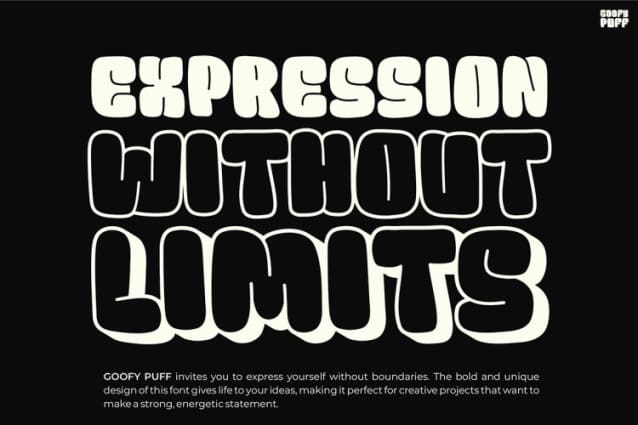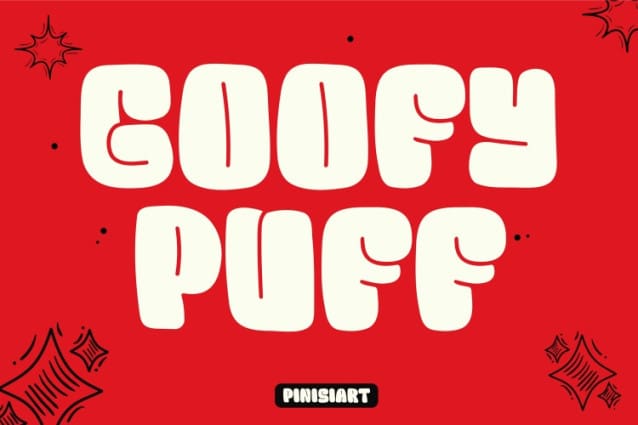
Goofy Puff Font
Goofy Puff is a bold, chunky, and playful typeface designed to bring fun and nostalgia to your creative projects. With its puffy, rounded letterforms and slightly irregular shapes, it captures the essence of retro bubble typography. This font instantly evokes a groovy, vintage vibe while maintaining a fresh, modern appeal.
Goofy Puff stands out with its thick and soft strokes, creating a friendly, almost cartoonish feel. The slightly uneven lines add a hand-drawn charm, making it perfect for designs that need a warm and energetic personality. Whether you’re working on branding, posters, or social media graphics, this font brings a sense of fun and excitement to any project.
Moreover, Goofy Puff is highly versatile. It works well for bold headlines, eye-catching logos, and creative packaging designs. Its chunky, balloon-like structure gives it a dynamic presence, ensuring your message pops off the page. When paired with bright colors and playful illustrations, it enhances the retro aesthetic. Alternatively, combining it with minimal backgrounds can create a strong contrast that makes the font the center of attention.
If you love the playful typography of the ‘70s, ‘80s, and early ‘90s, Goofy Puff is a must-have. Its quirky yet stylish look makes it a great choice for those who want to infuse joy and personality into their designs.